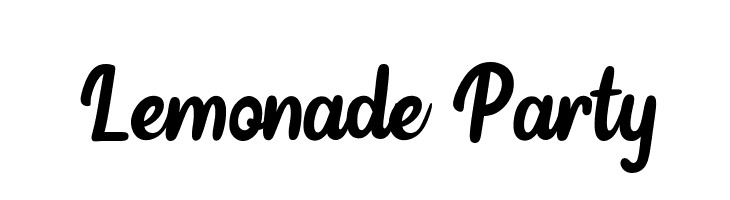
A playful, handwritten script font with smooth, connected characters.
A lively handwritten font with fluid, dynamic strokes and a playful style.
A playful, hand-drawn font with rounded edges and consistent stroke width.
A lively and expressive script font with playful, cursive strokes.
A playful, casual handwritten font with smooth curves and consistent strokes.
A bold, handwritten font with a playful and casual style.
A playful, handwritten font with tall, narrow letters and a casual style.
A bold, energetic script font with fluid strokes and a playful style.
A bold and expressive brush script font with dynamic strokes.
A graceful and elegant script font with flowing, connected characters.